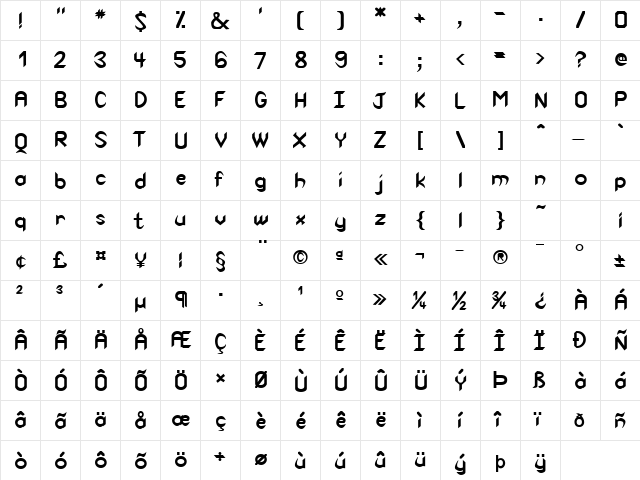
Spike Bold
Design Context for Spike Typeface
Spike offers clean, dependable letterforms without strong stylistic allegiance, making it a practical choice for designers who need flexibility. Its bold stroke weight gives it real presence on the page.